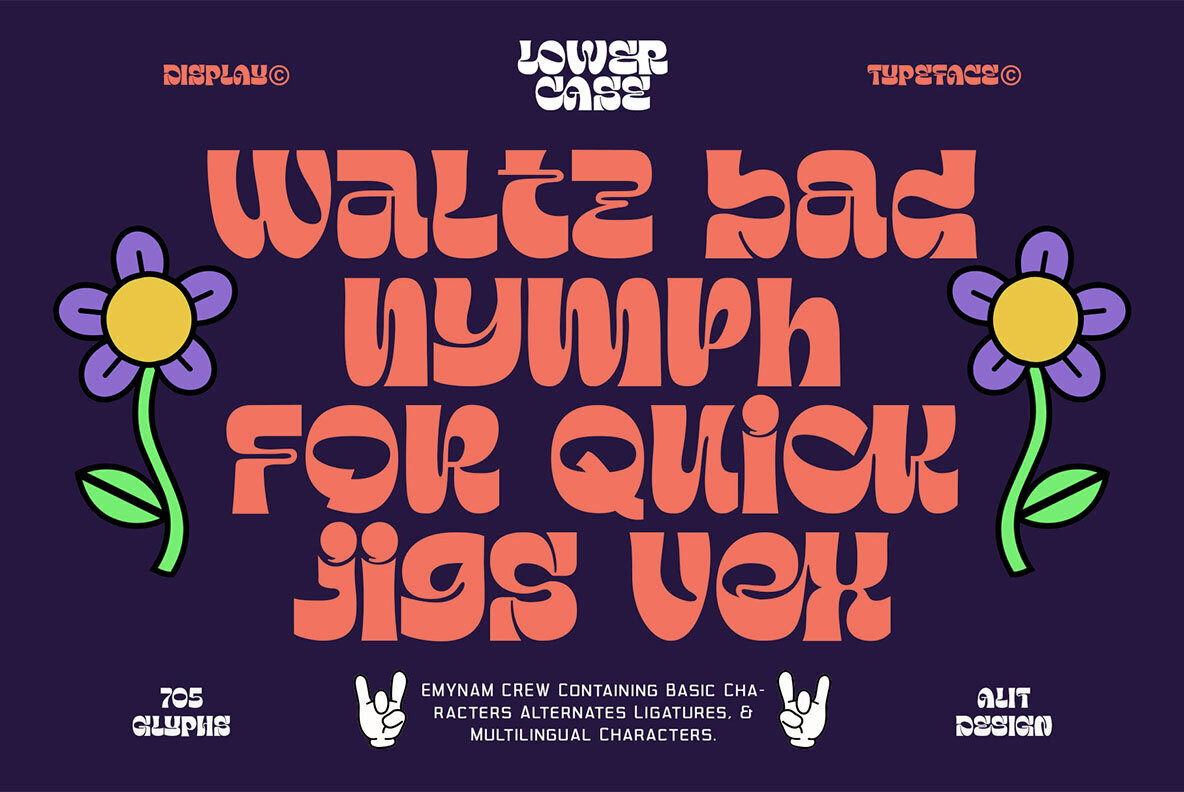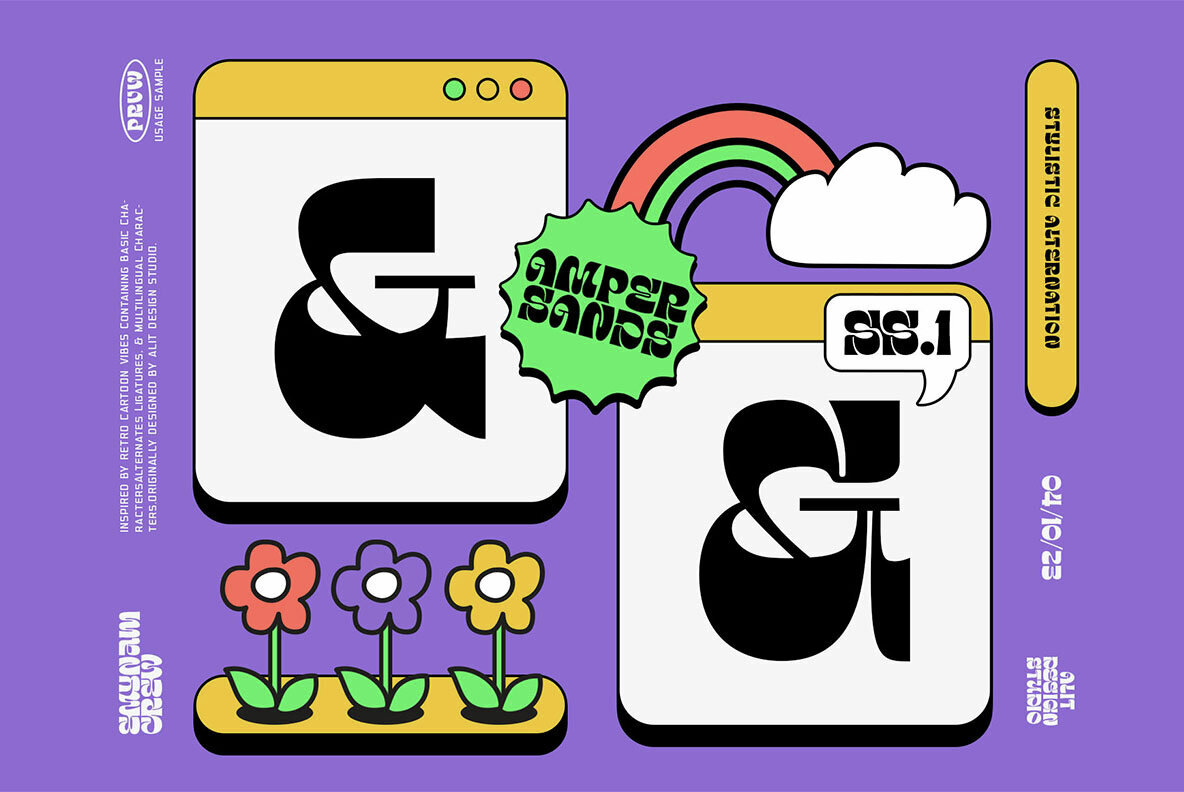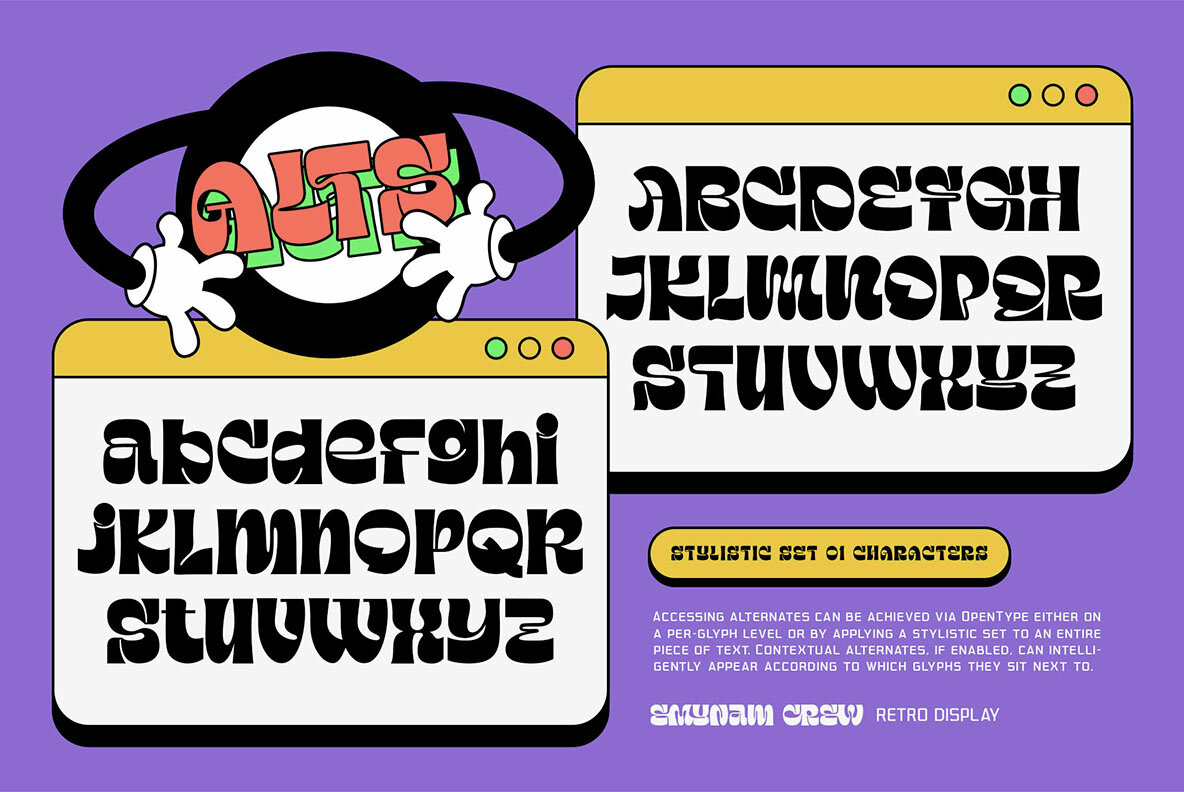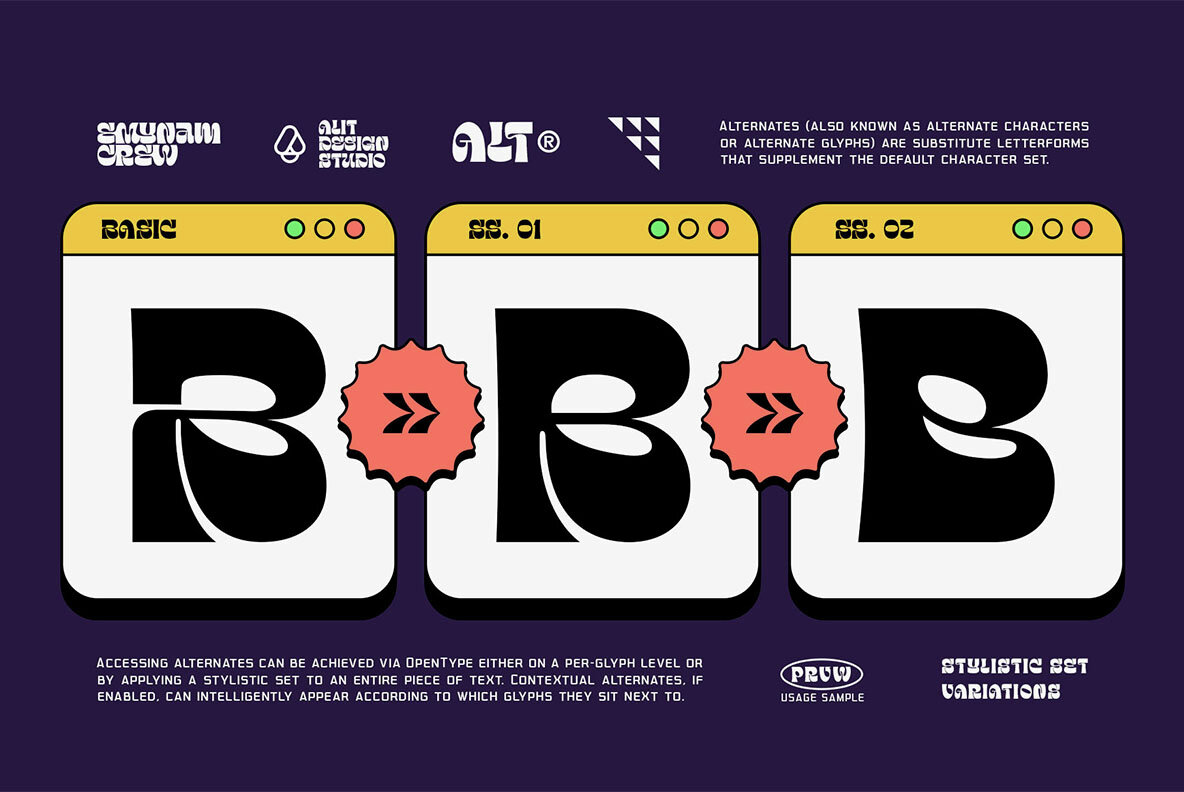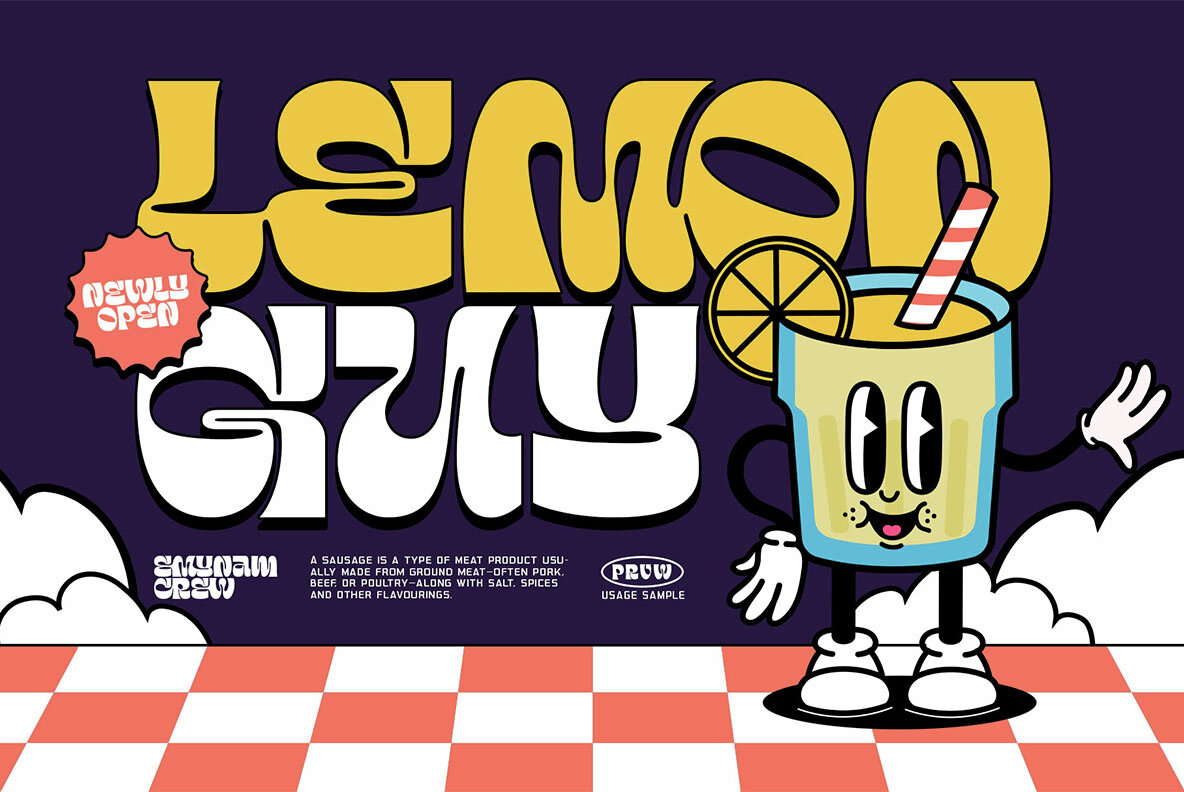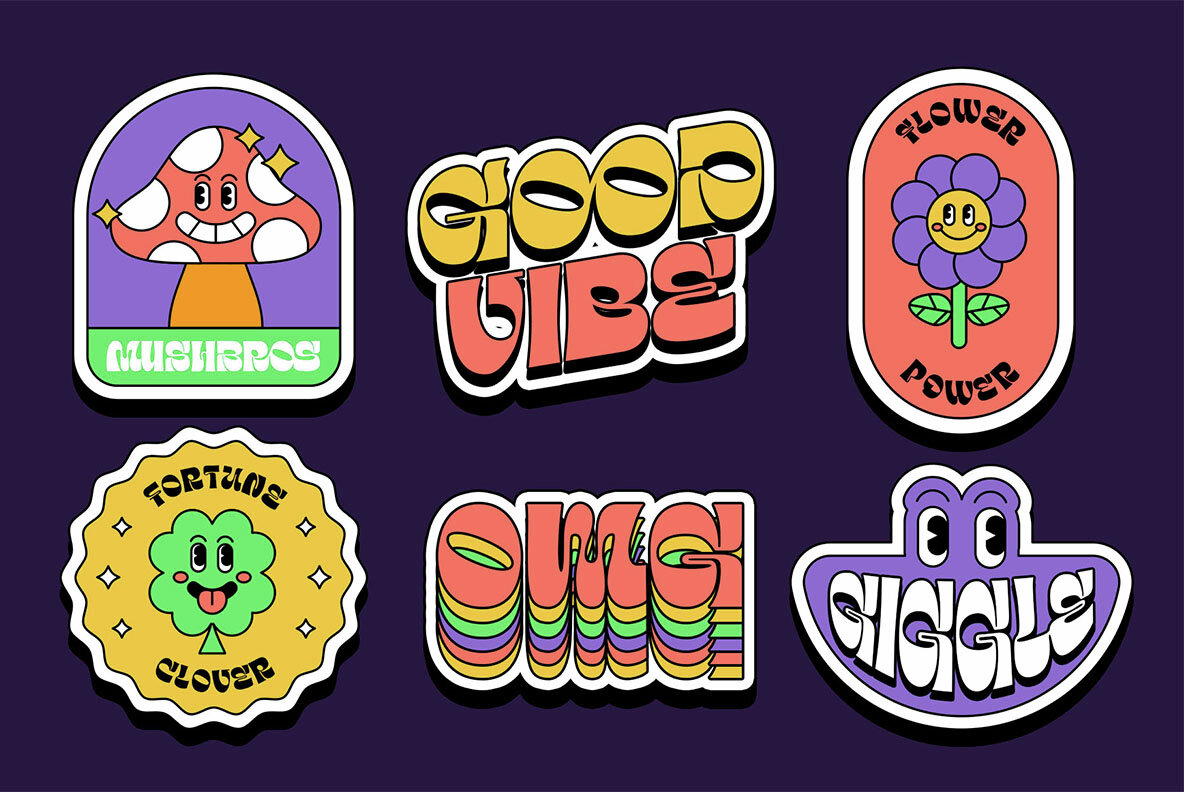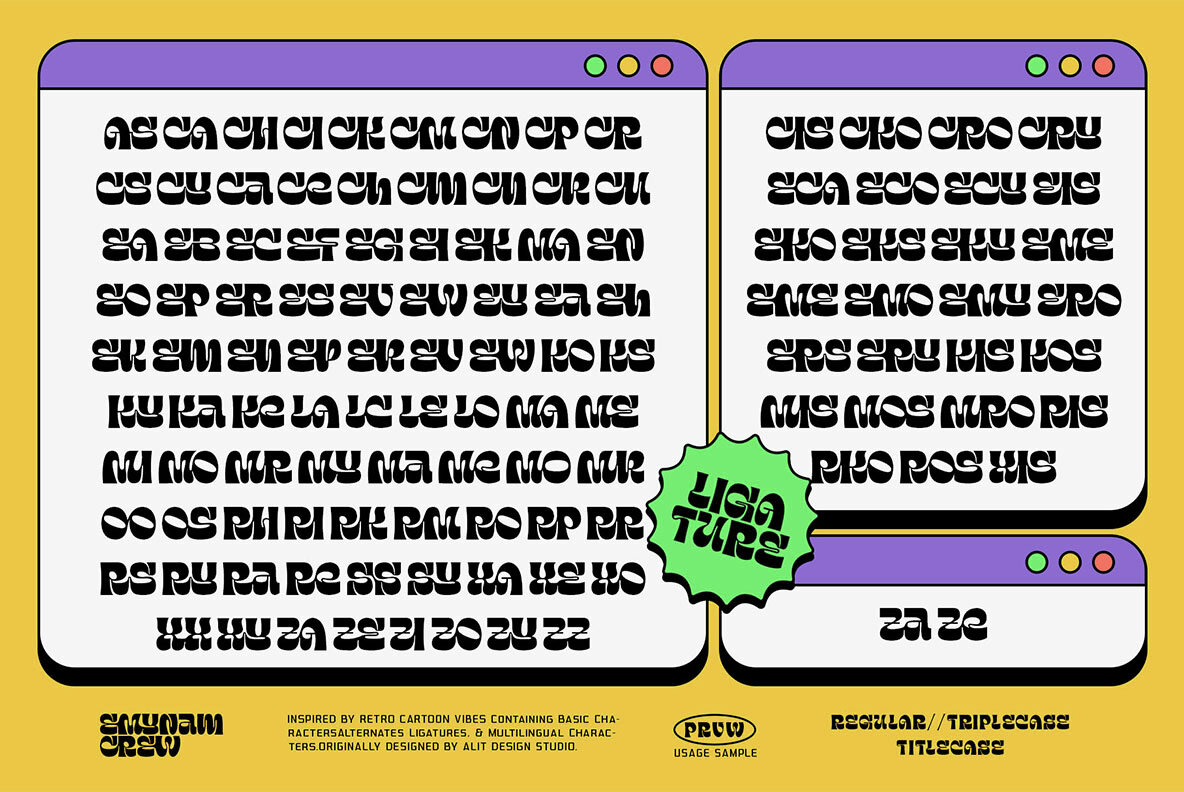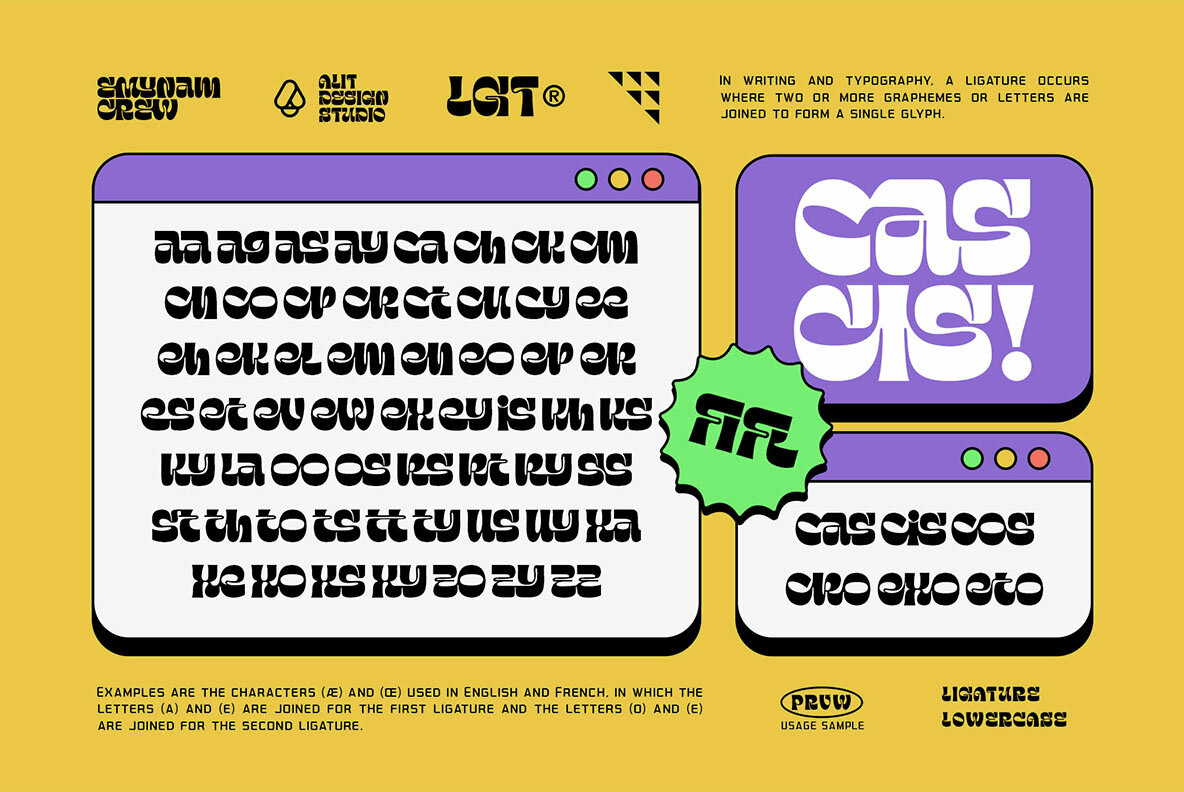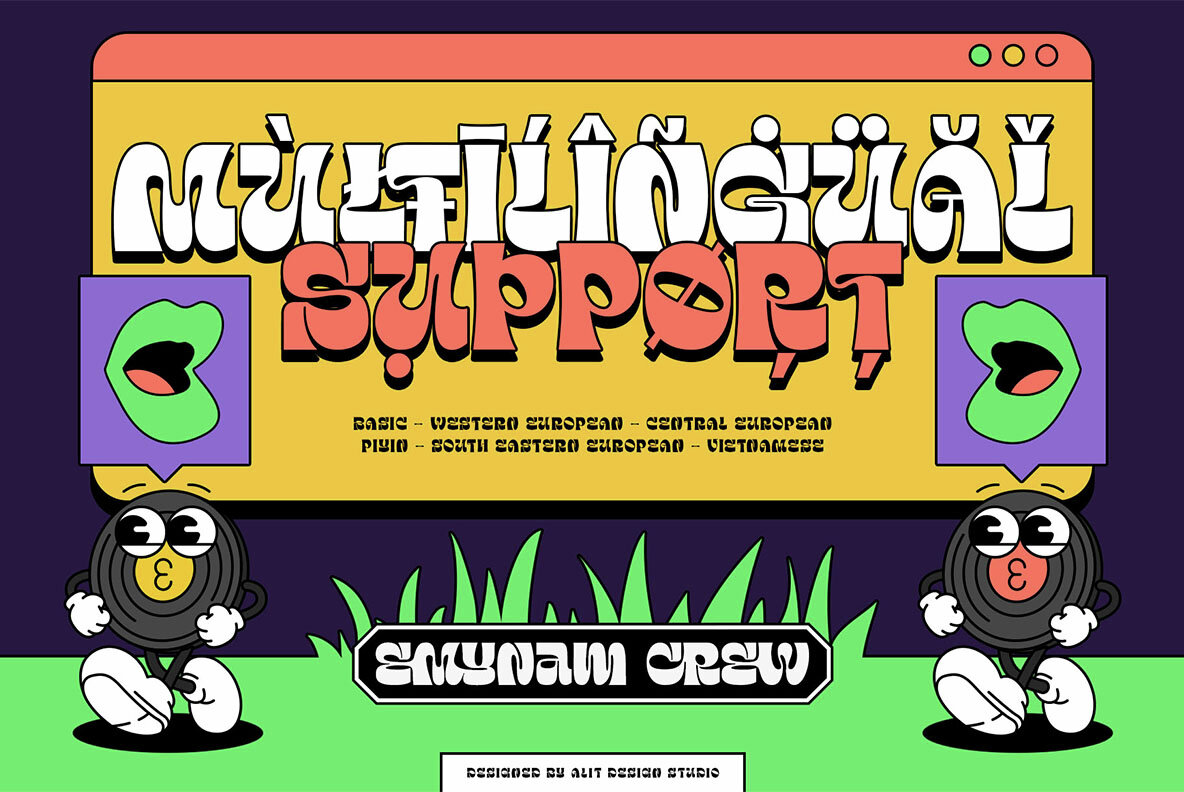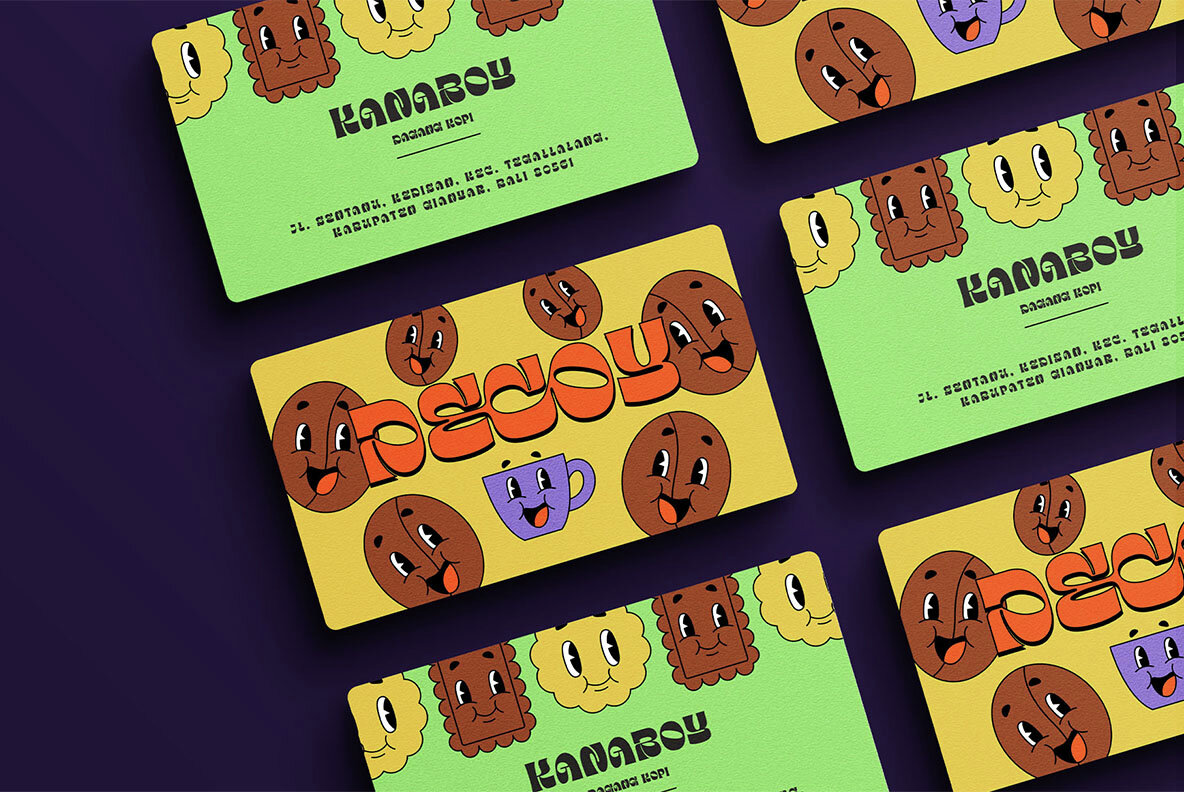
Dear Design Enthusiasts, Are you ready to groove to the rhythm of creativity and nostalgia? Say hello to the Emynam Crew, the font that's bringing back the funky retro vibes of yesteryears with a modern twist. With its unique blend of style, flair, and a whopping 705 glyphs, this typeface is a must-have for anyone looking to make a statement. Key Features: Unleash your inner artist and let Emynam Crew transport your designs to a bygone era. Embrace the funk, the retro, and the style with this one-of-a-kind typeface. Don't miss out on this opportunity to own the Emynam Crew – a font that's all about style, character, and endless possibilities. Get ready to turn back the clock and add a touch of funky nostalgia to your next project.Emynam Crew: A Funky Retro Display Typeface